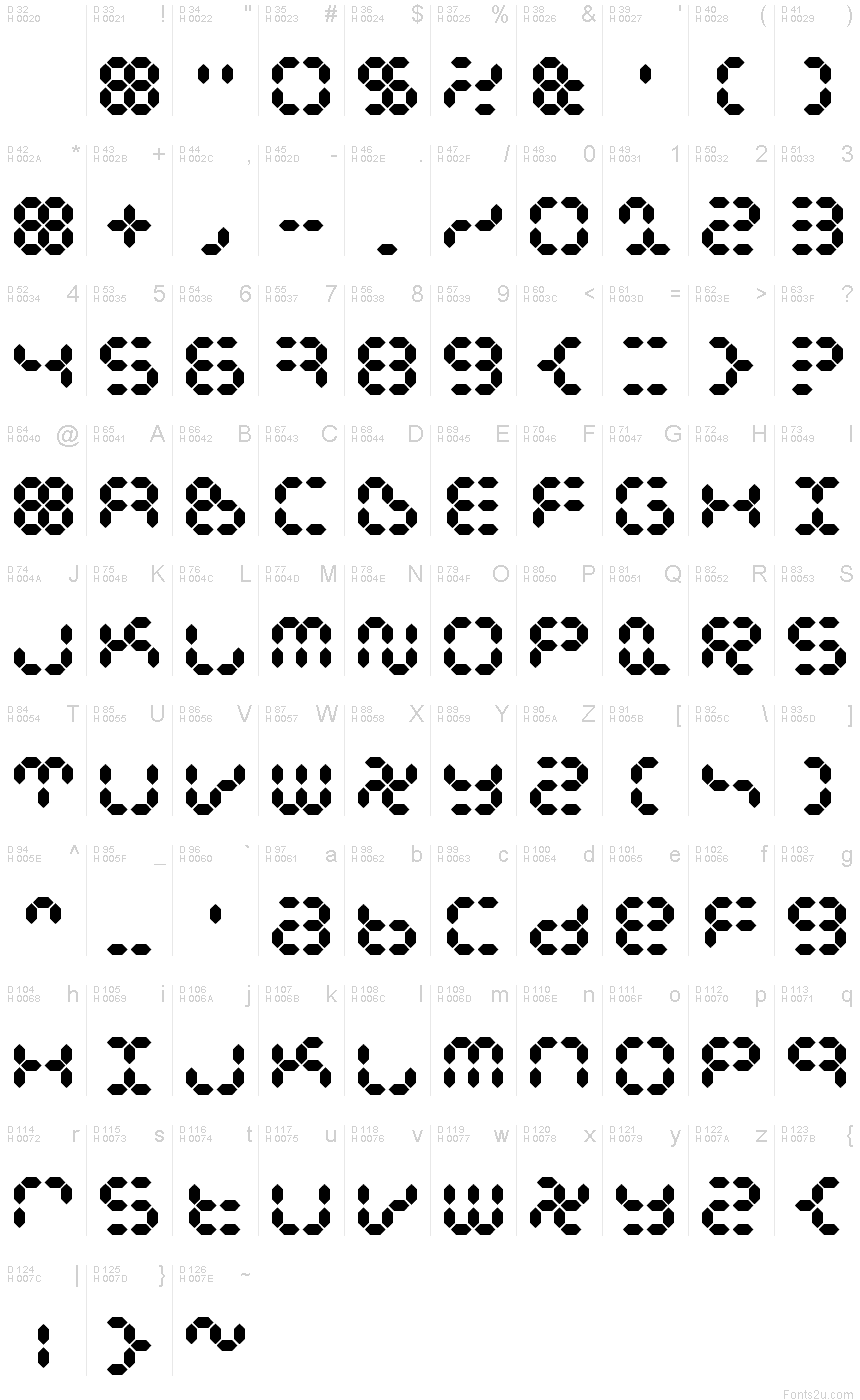
Dspl
Dspl font by Andreas Nylin taps into that satisfying early-digital look, where letters are snapped from chunky hex-like tiles and the counters stay airy and geometric. It is a free digital display font, and the typeface reads like an LED panel filtered through a honeycomb grid—crisp, mechanical, and unapologetically retro-tech.
Using Dspl, you’ll get instant attitude on sci‑fi UI screens, game HUD overlays, tech posters, synthwave album art, robotics branding, event flyers, and scoreboard-style graphics. Keep it slightly oversized so the modular rhythm stays clean, then pair it with a plain neo-grotesk sans for body copy to let this free font do the talking.